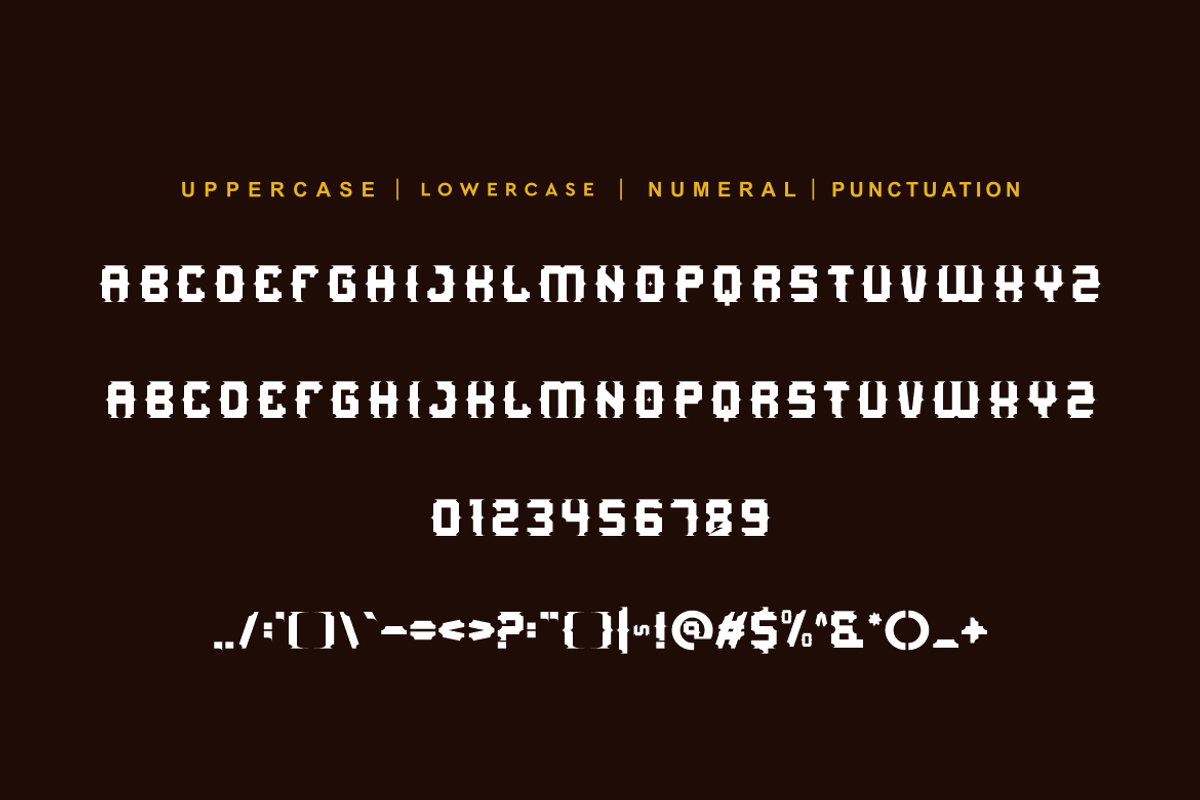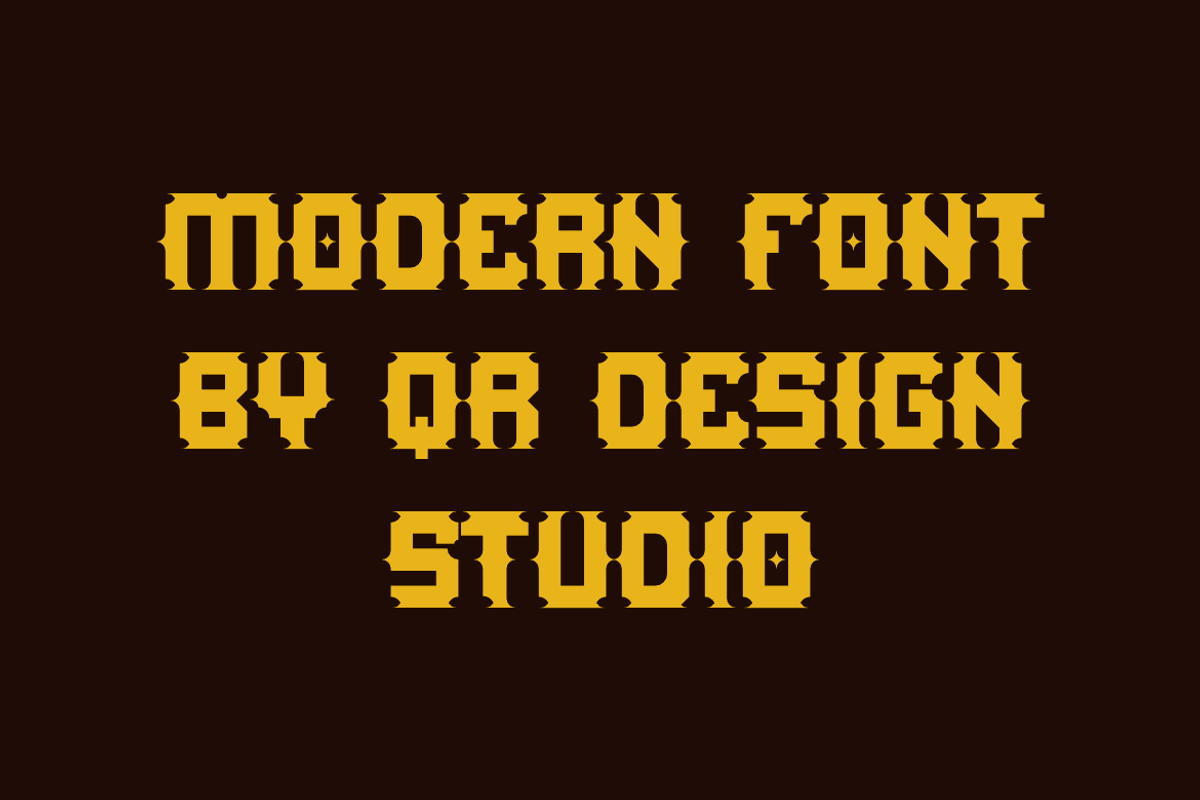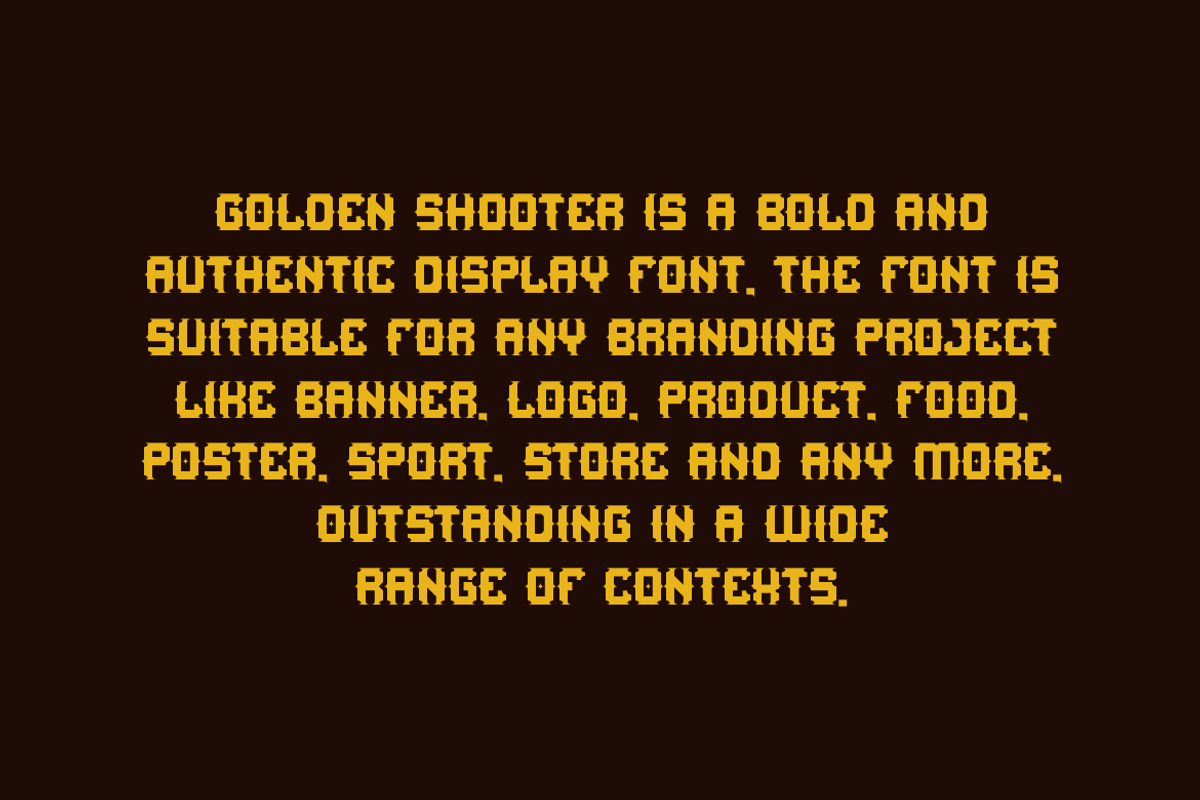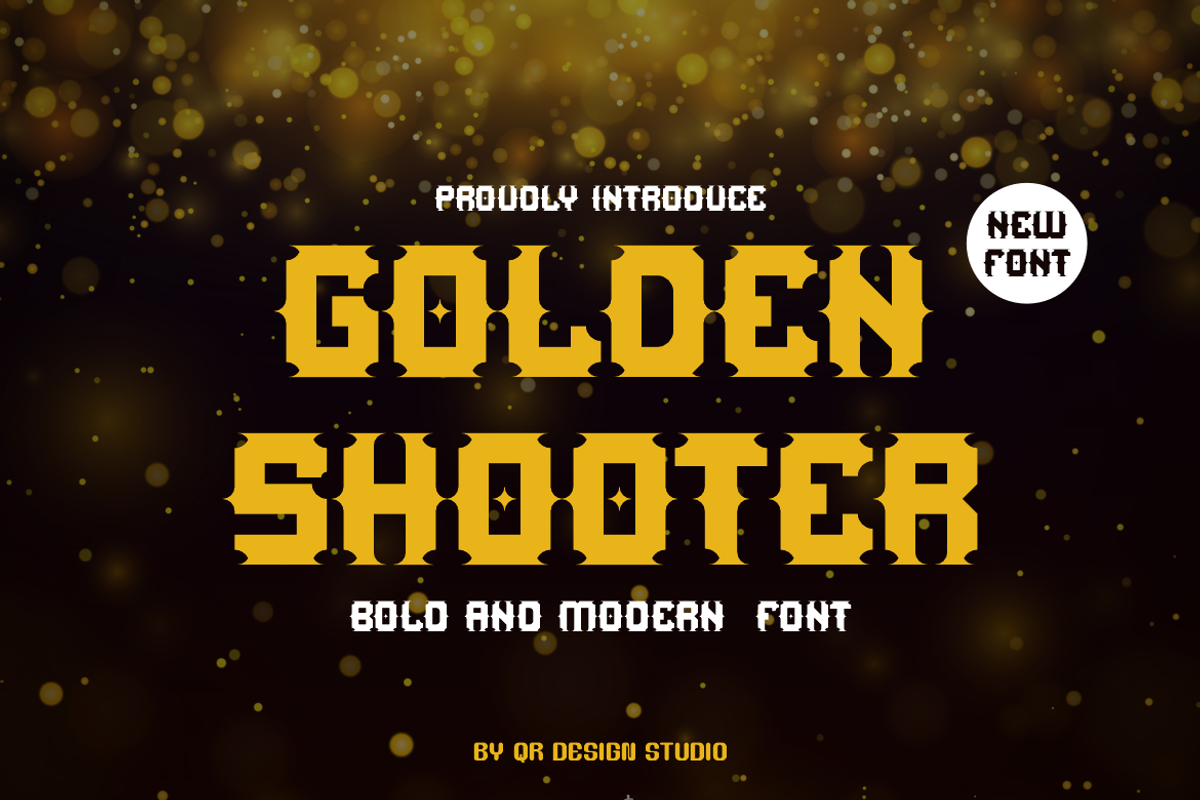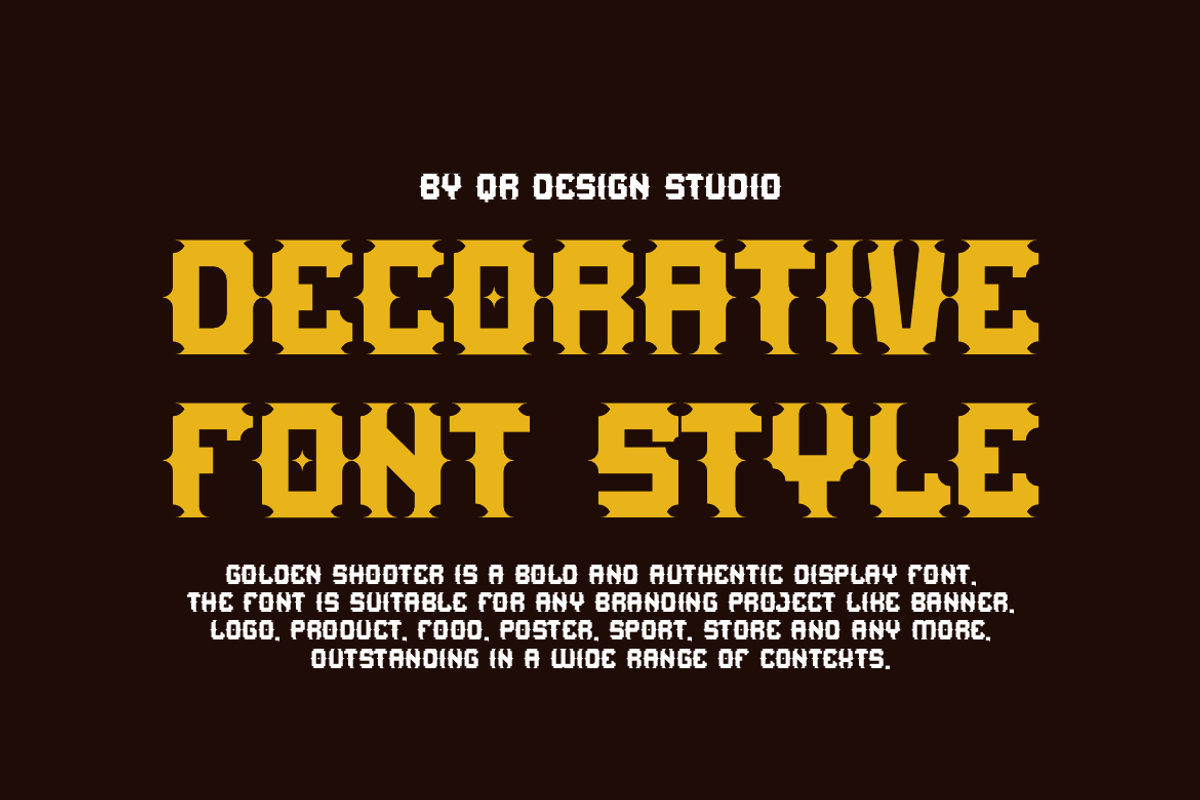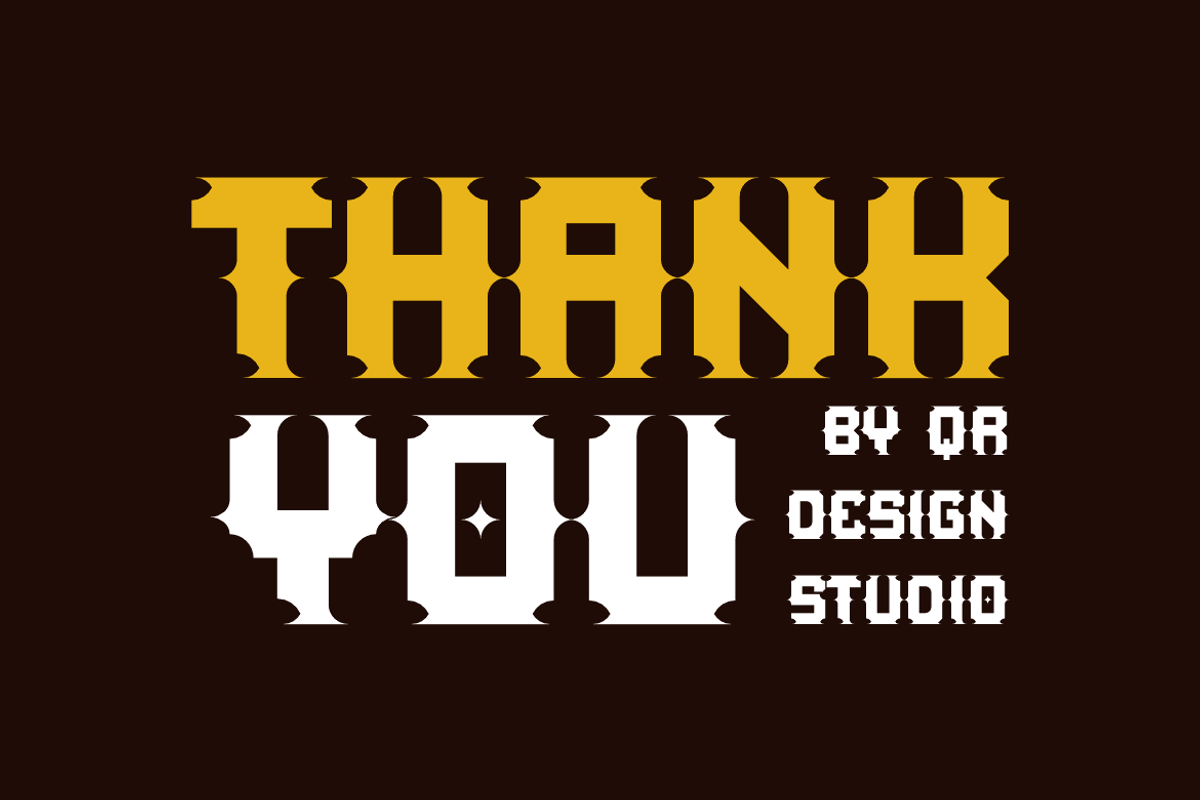
Golden Shooter - Condensed & Artdeco
Golden Shooter - Condensed & Artdeco Font is a bold and authentic display font. The font is suitable for any branding project like poster, logo, sport, and many more. Outstanding in a wide range of contexts.